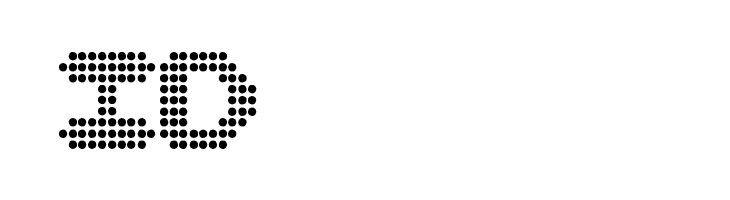
A bold, geometric font with a retro, disco-inspired design.
A bold, geometric font with a retro disco vibe.
A bold, decorative font with a retro, disco-inspired dot pattern.
A playful dot matrix font with a retro digital display vibe.
A bold, decorative font with a retro, disco-inspired design featuring dotted patterns.